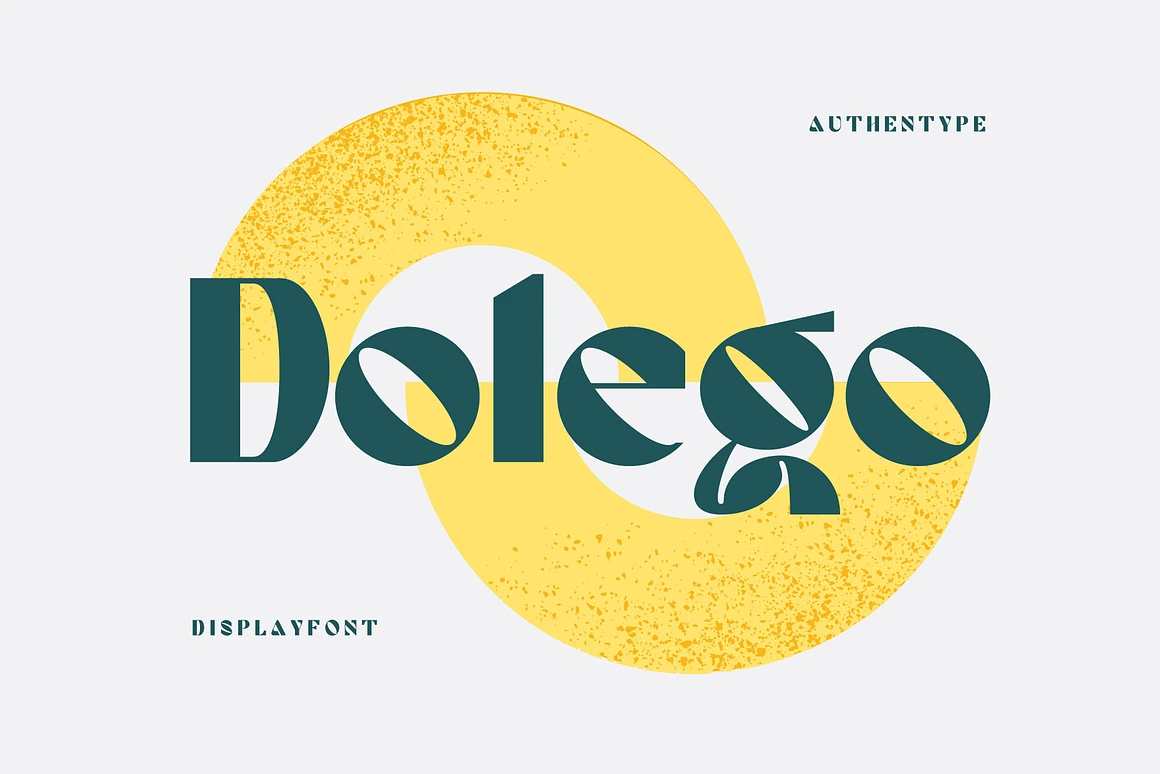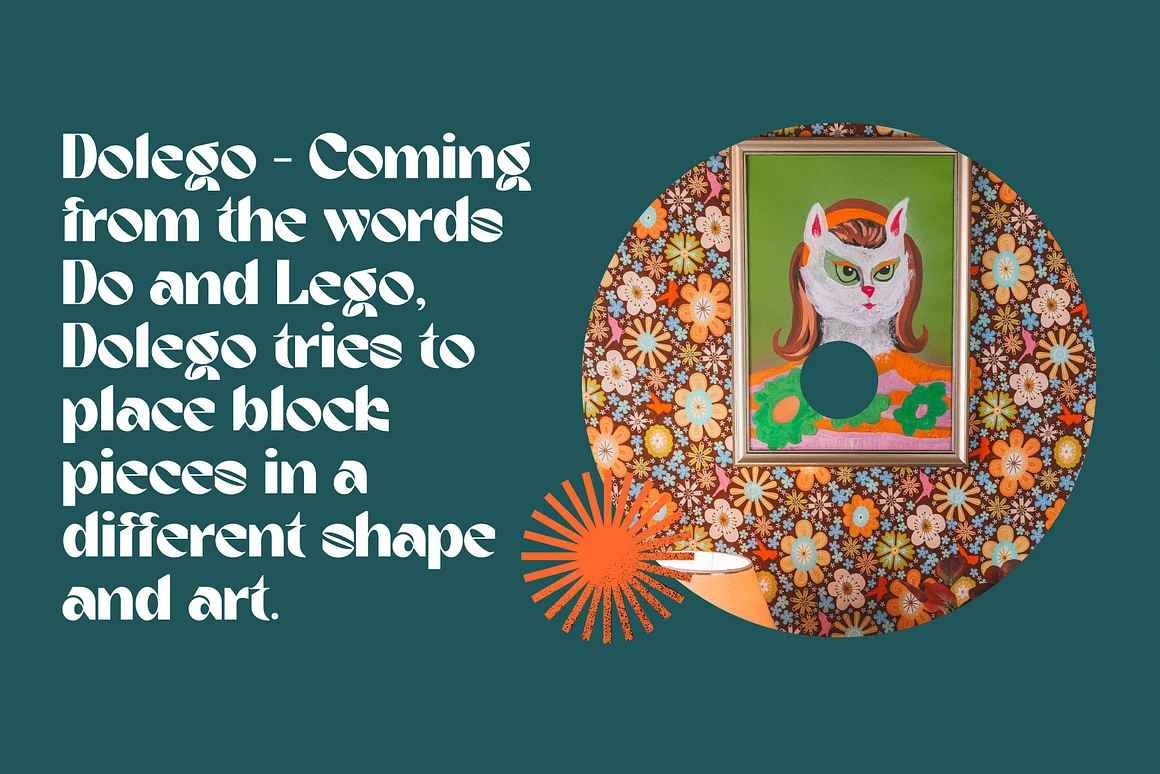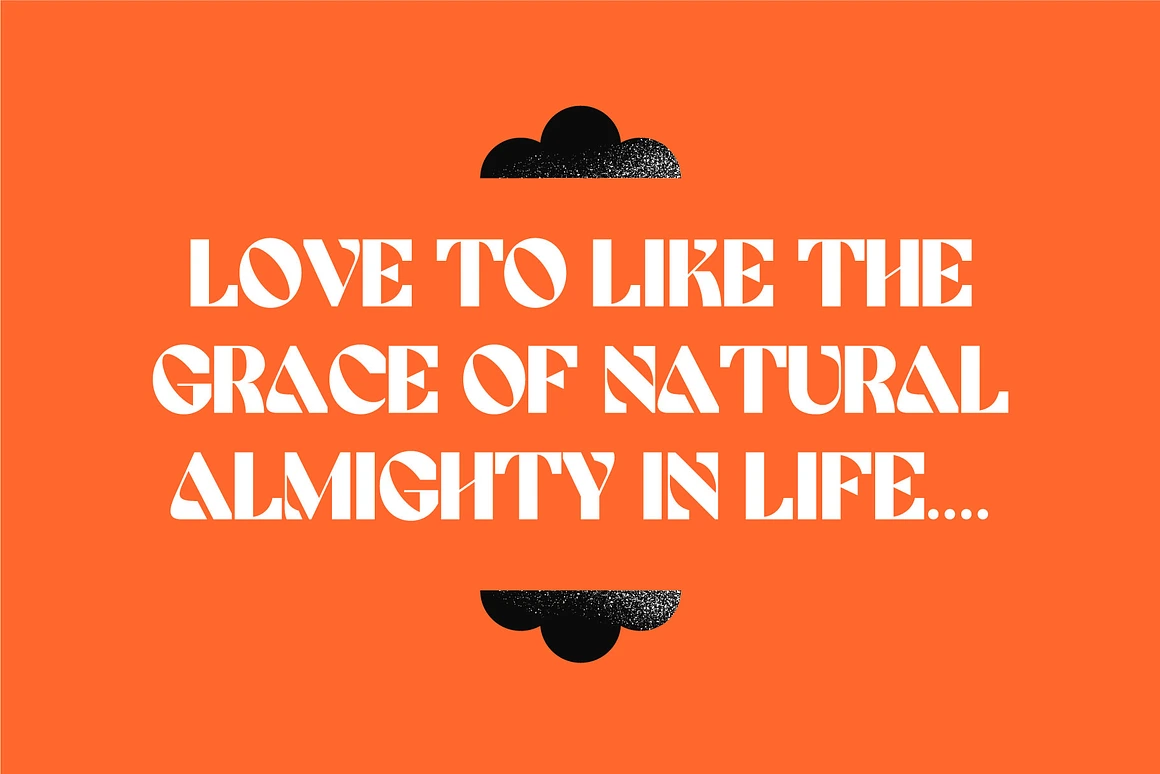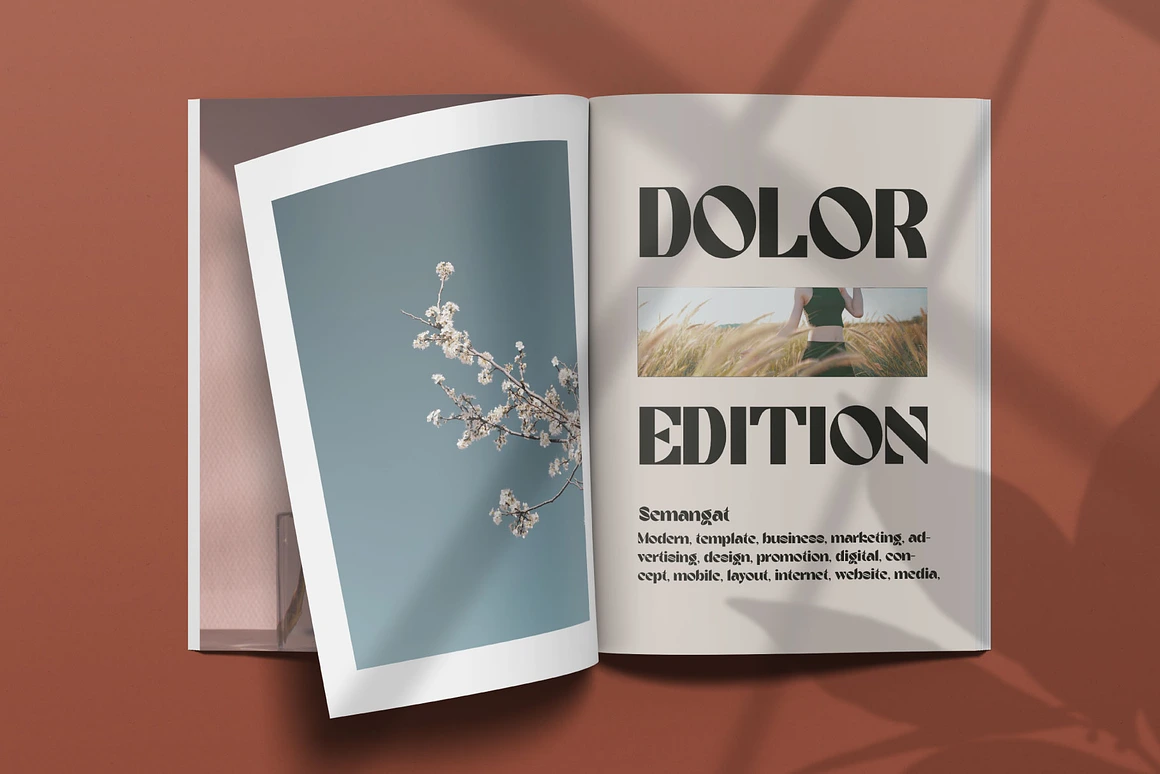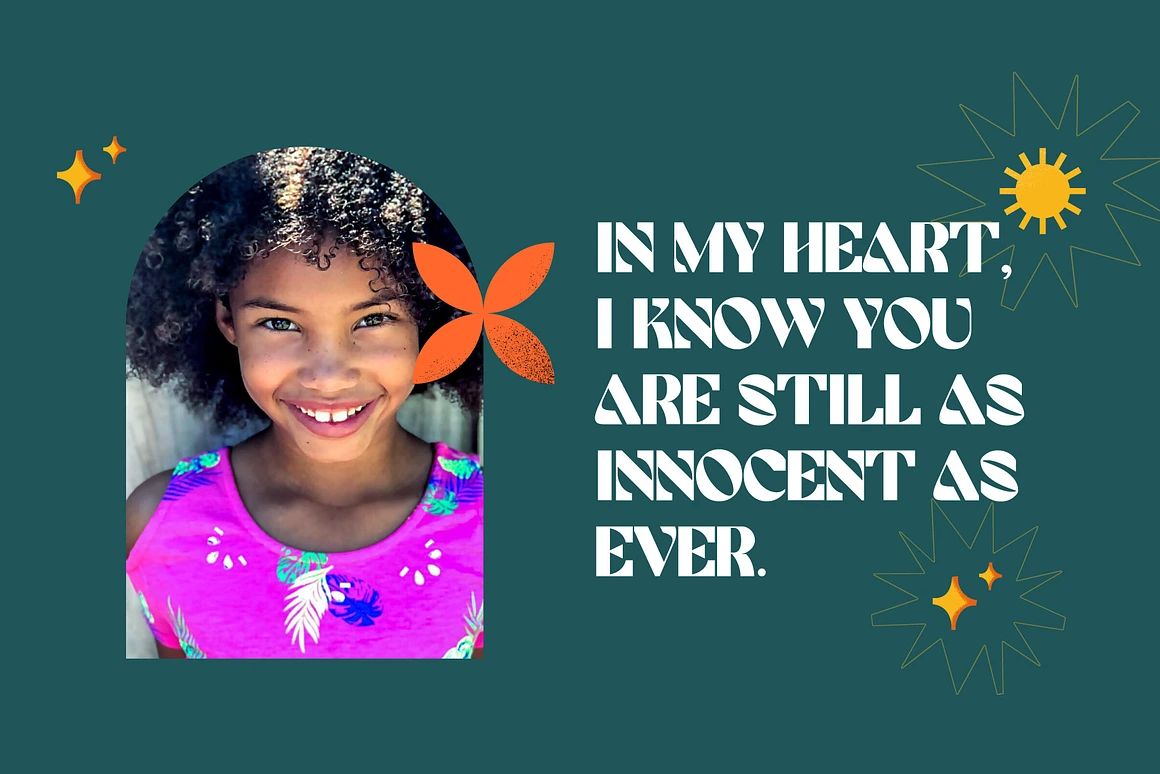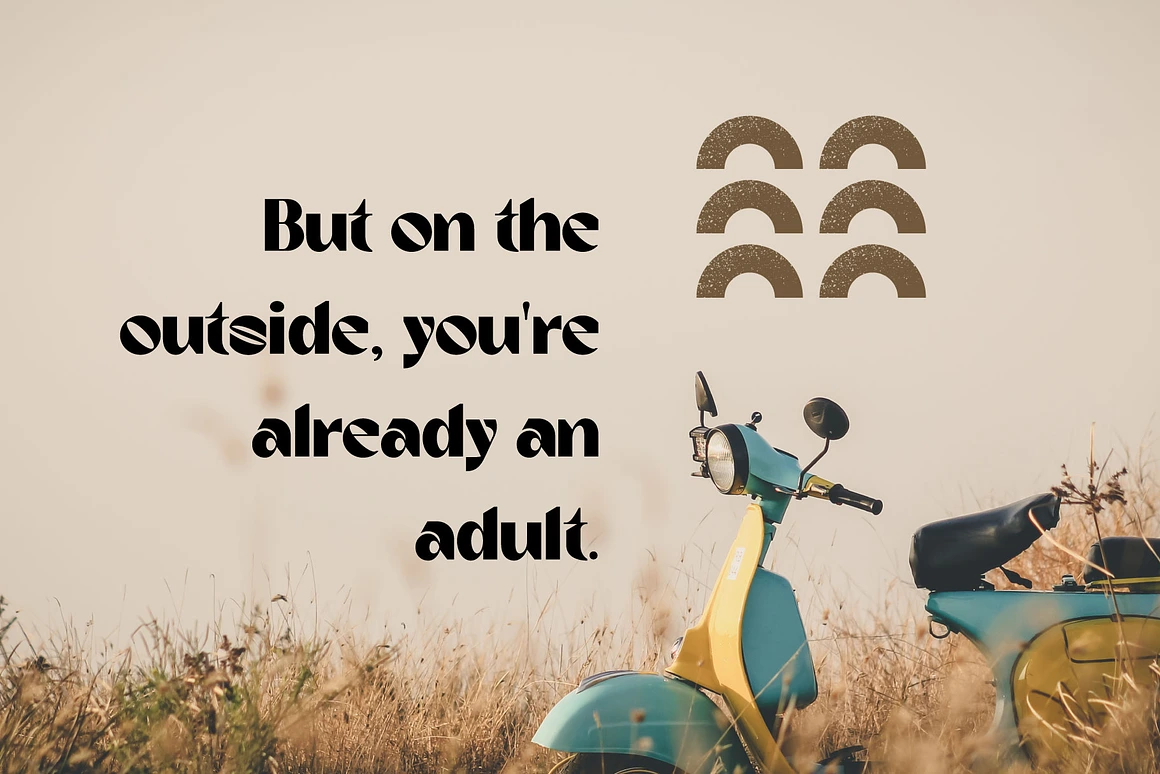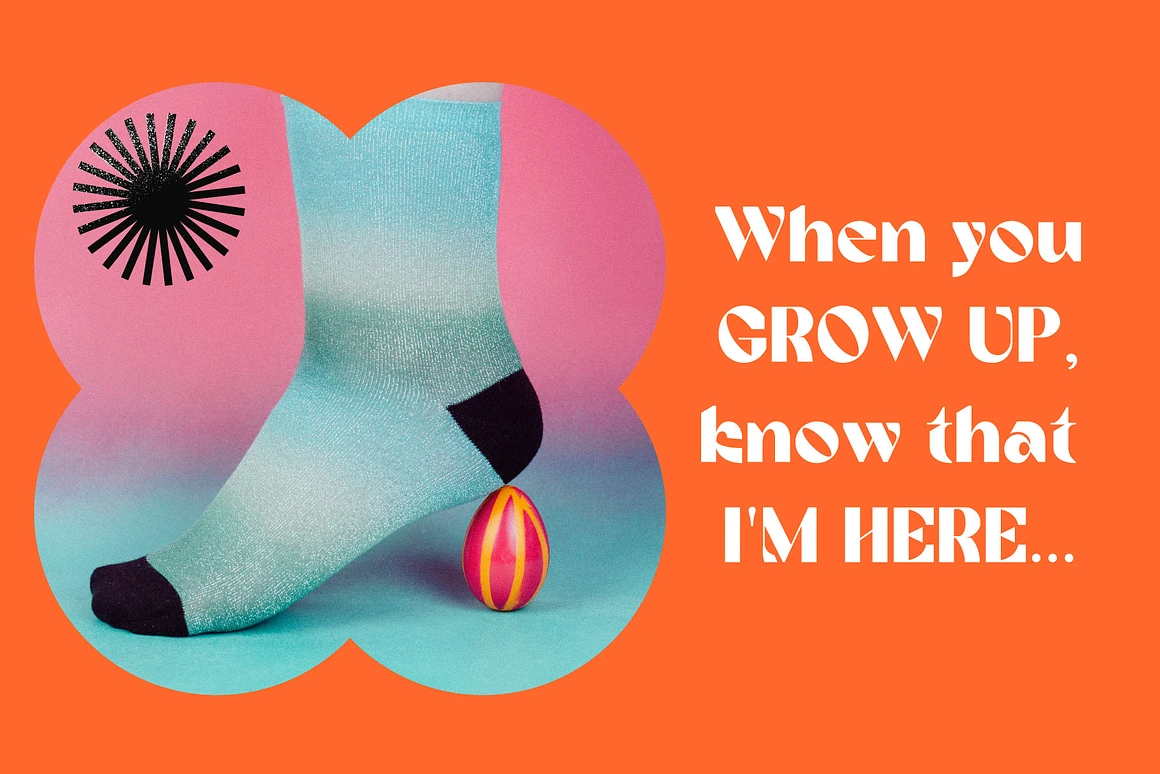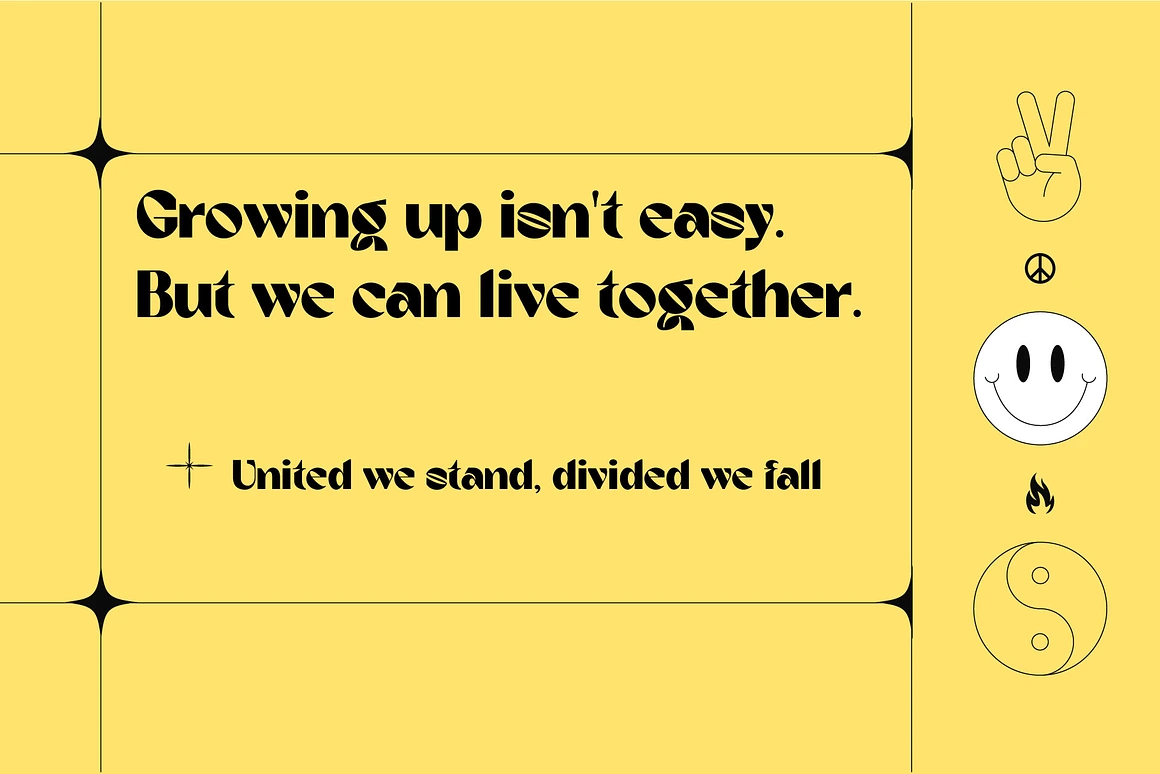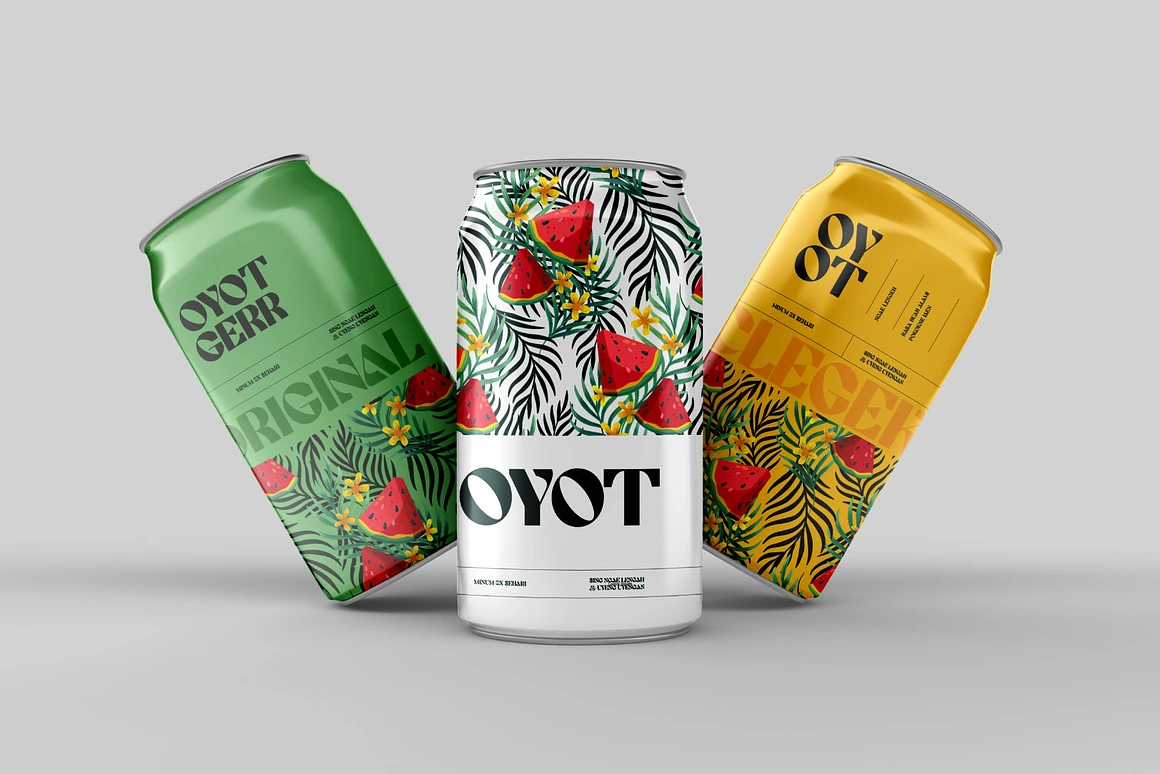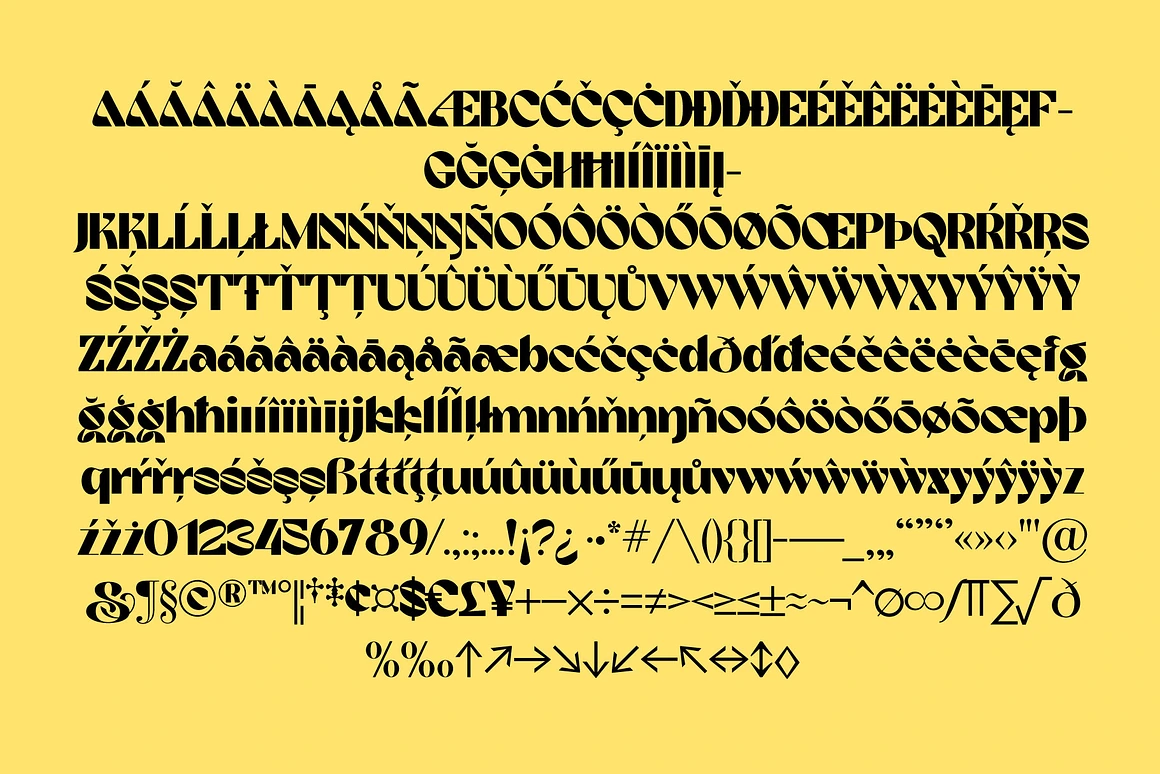
Dolego Bold Retro Display Font
Dolego contains 1 style.
Dolego is a bold retro display font with a cool, confident personality, perfect for giving your designs a vintage yet modern vibe. This strong and stylish font is ideal for logos, headlines, posters, apparel, packaging, and branding projects.
Whether you’re creating bold retro display font, 80s-inspired designs, or eye-catching titles, Dolego makes your text stand out with bold shapes and smooth curves.
✔ Uppercase & Lowercase Letters
✔ Numbers & Punctuation
✔ Multilingual Support: ä ö ü Ä Ö Ü ß ¿ ¡
✅ Perfect for retro logos, vintage posters, and bold branding